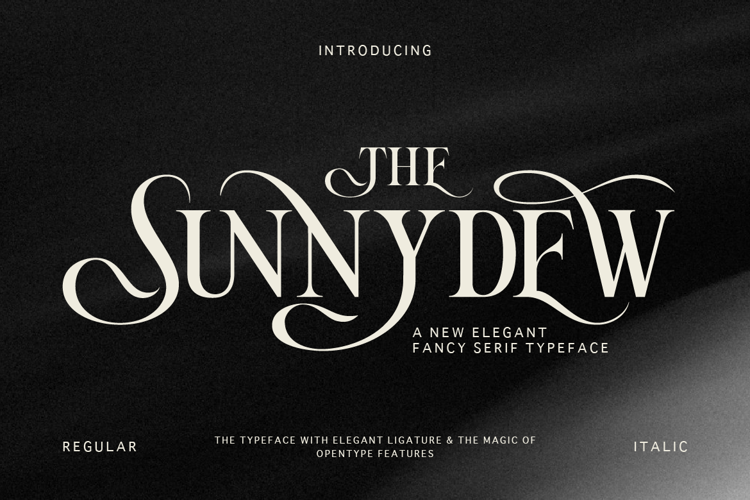
Sunnydew Font
Perfect for:
- Luxury brand logos & identity
- Wedding invitations & stationery
- Fashion & lifestyle branding
- Magazine headlines & editorial layouts
- Product packaging design
- Social media graphics & Instagram posts
- Posters & event promotions
- Quotes, greeting cards & feminine designs